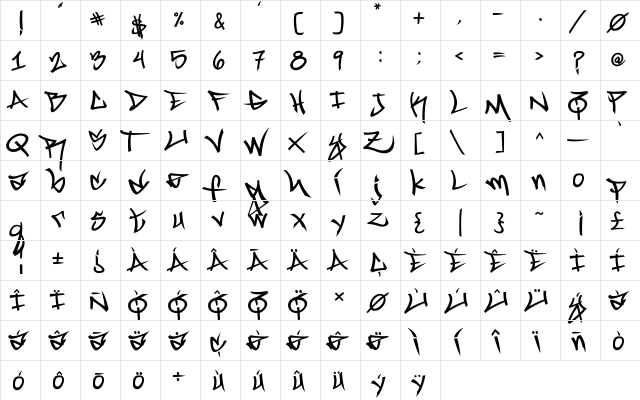
Marc Digital Graffiti Medium
| Foundry | IC3D DESIGN & DEVELOPMENT, LLC |
| Designer | Marc Digital of IC3D DESIGN - Vector artwork by Paul Hickman |
Design Context for Marc Digital Graffiti Typeface
Marc Digital Graffiti channels digital-age aesthetics through its sharp, structured letterforms — ideal for brands that want to signal innovation.